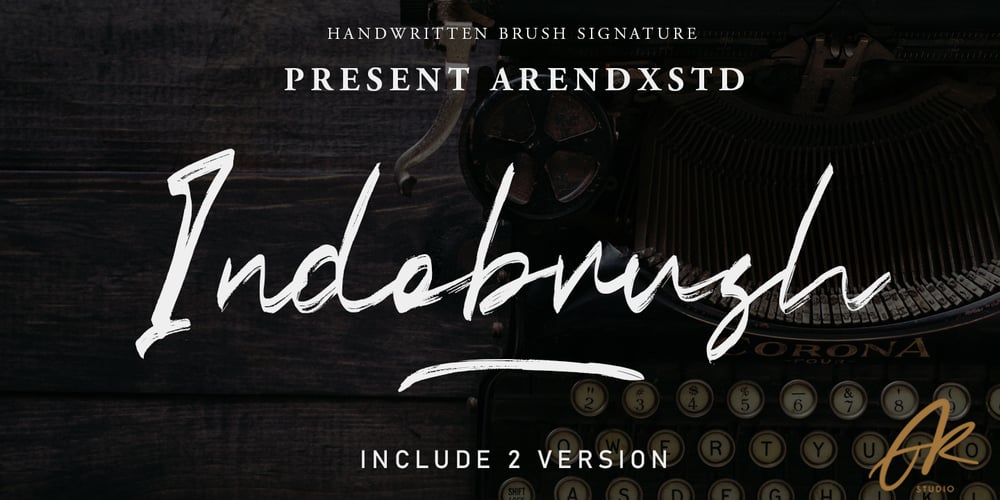
Indobrush
Indobrush font
Indobrush Font Family was designed by Asep Rendi and published by Arendxstudio. Indobrush contains 3 styles and family package options. Indobrush is a script font with distinctive handwritten characters perfect for branding projects, logos, wedding designs, media posts, advertisements, product packaging, product designs, labels, photography, watermarks, invitations, stationery, and any project which needs a handwritten feel. Features : • Character Set A-Z • Numerals & Punctuations (OpenType Standard) • Accents (Multilingual characters) • Ligature • Alternate • Swash There it is! I really hope you enjoy it – comments & likes are always welcome and accepted. More importantly, don’t hesitate to send a message if you have a problem or question.